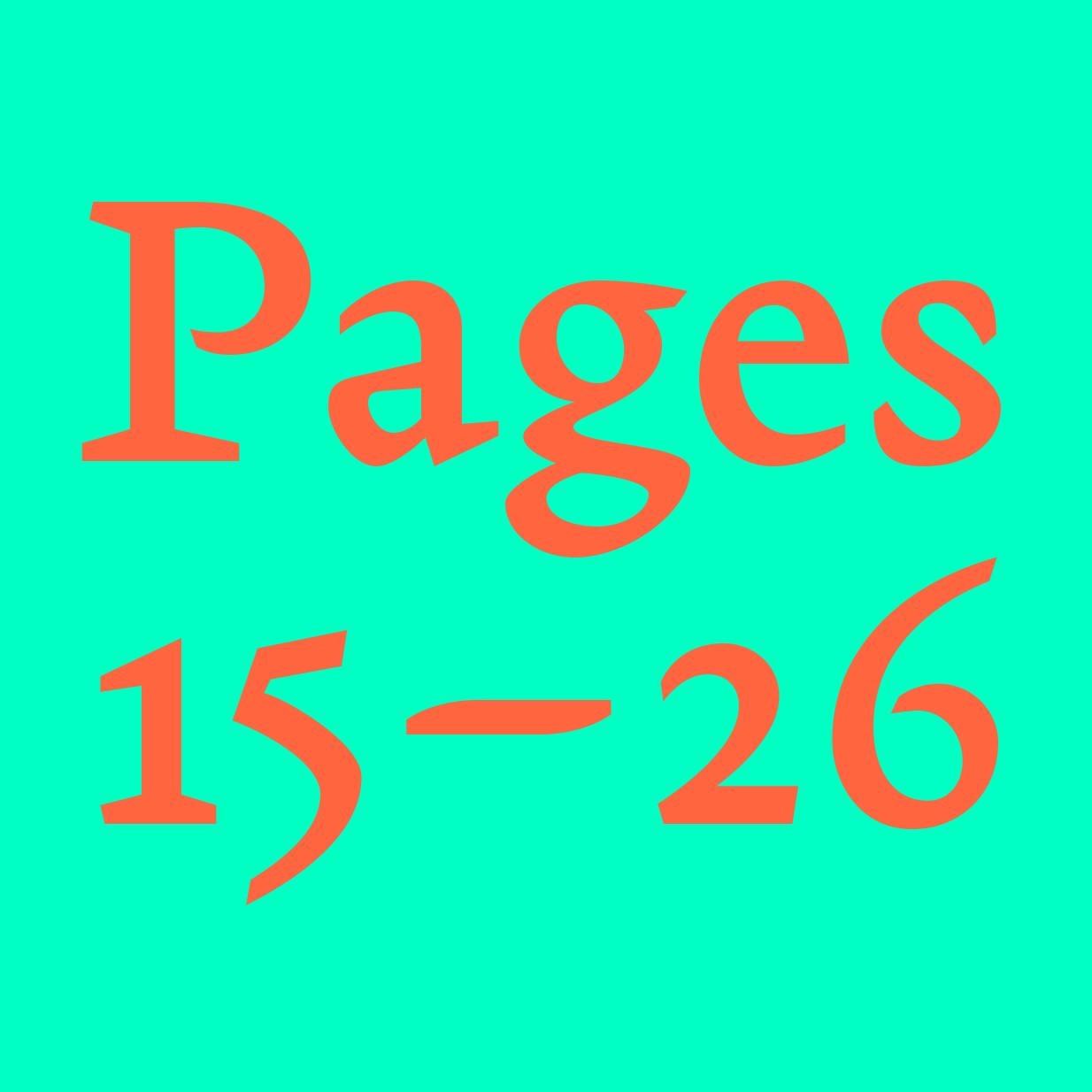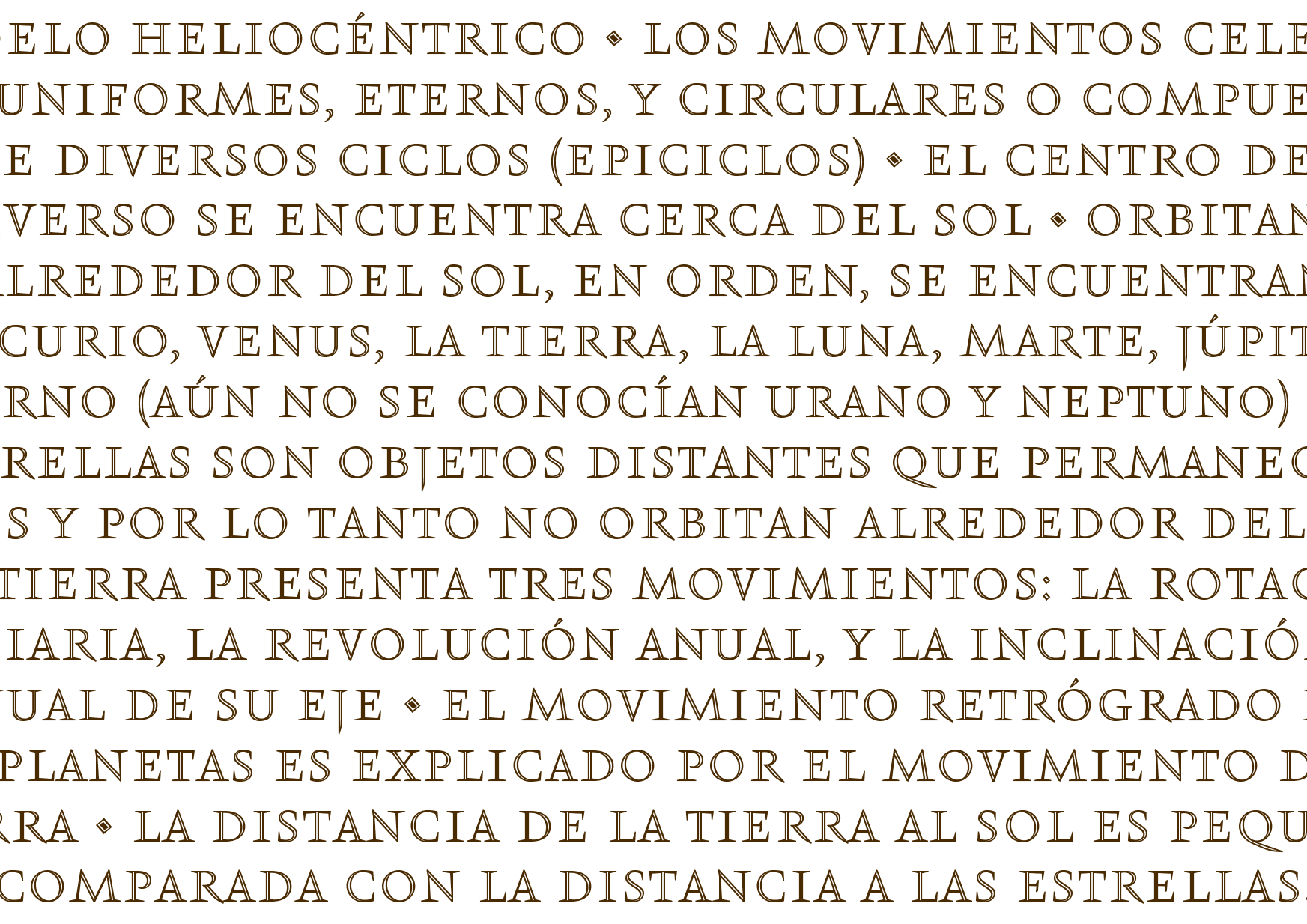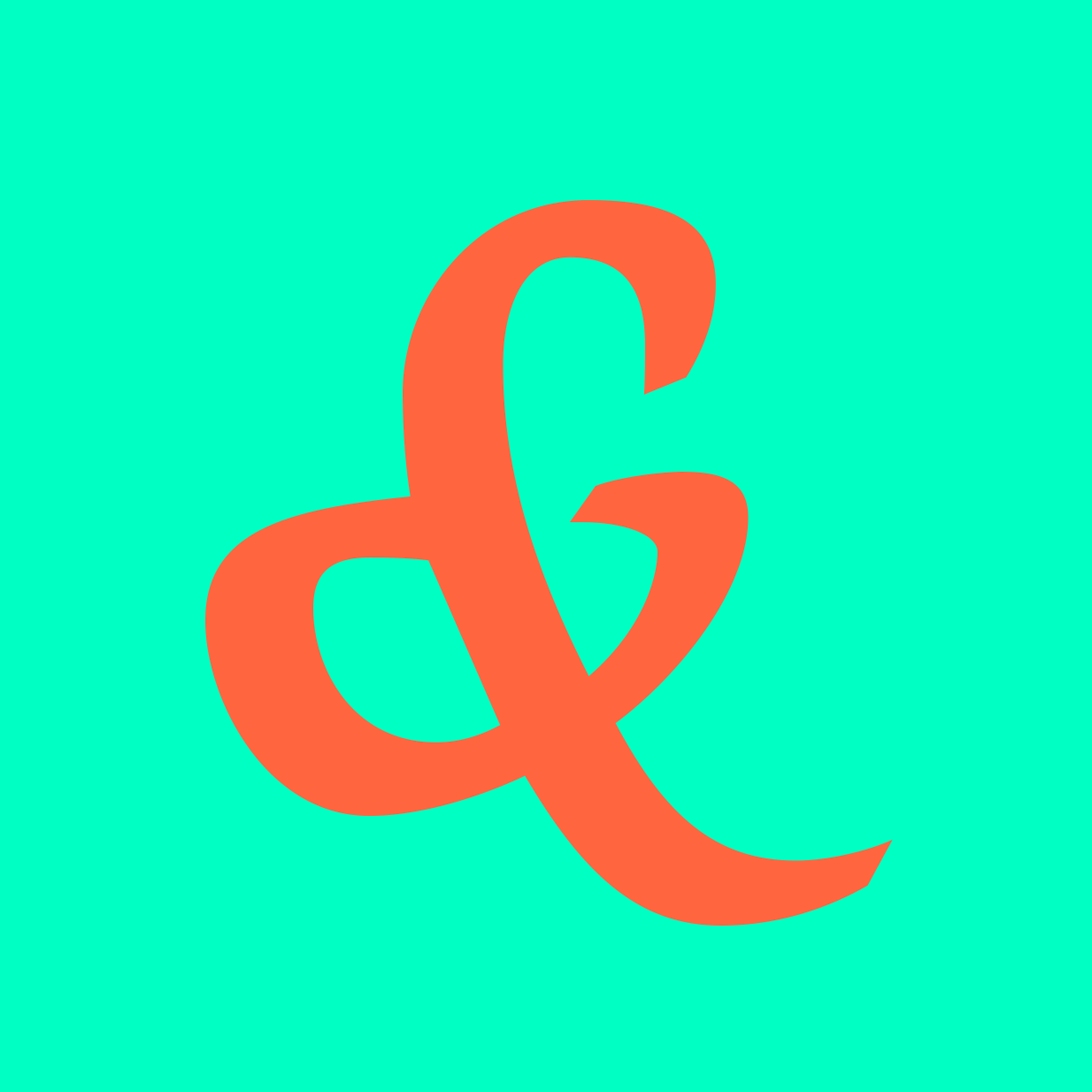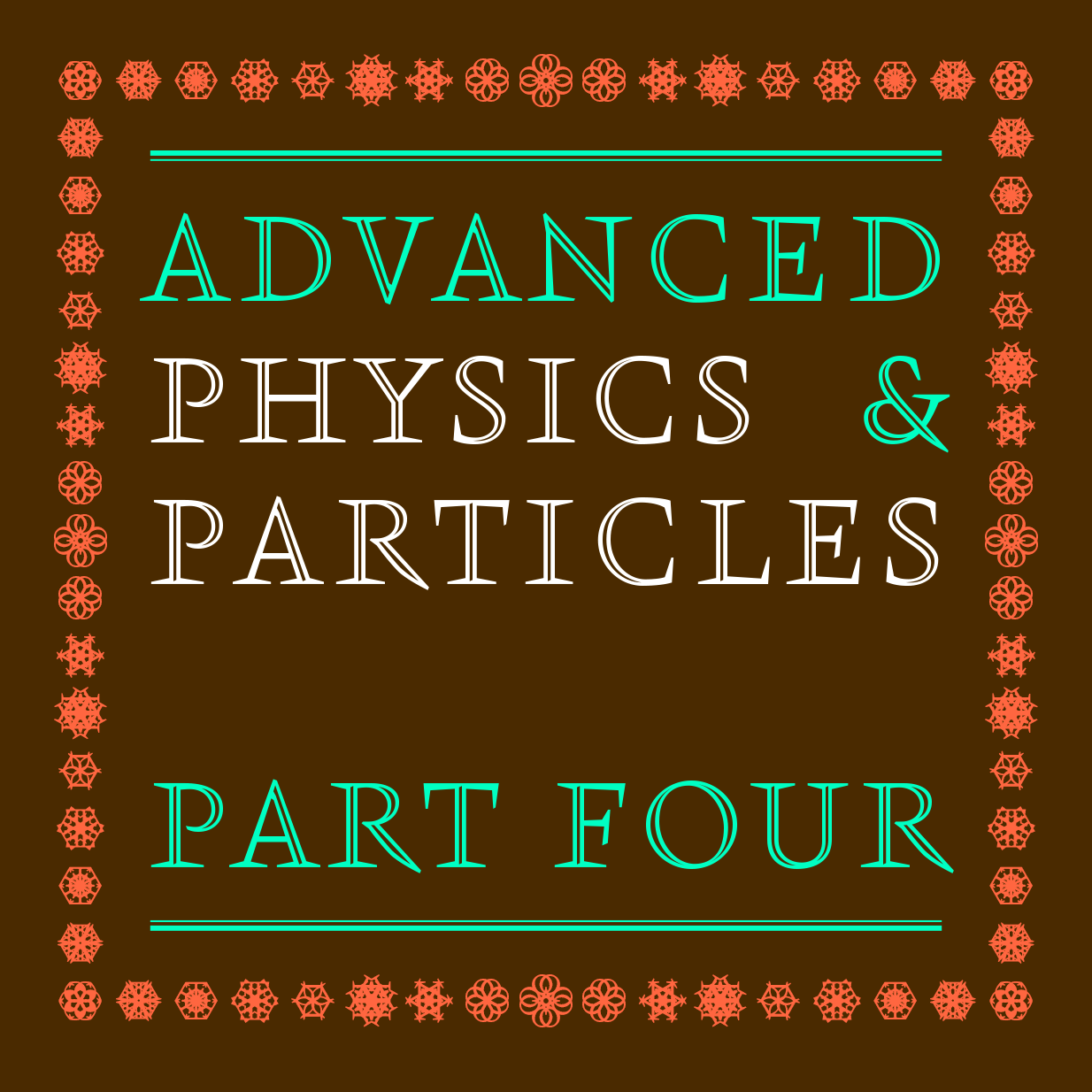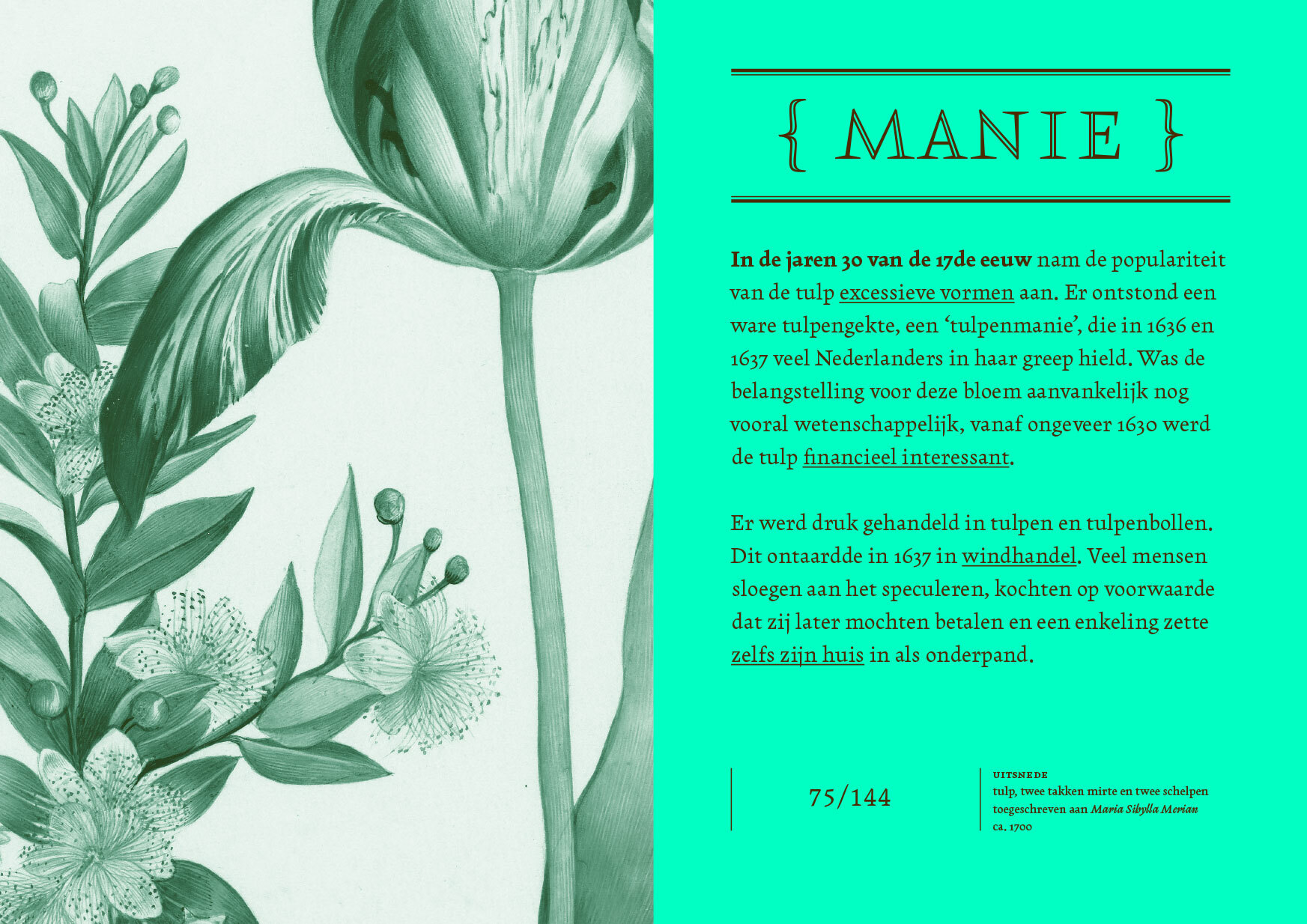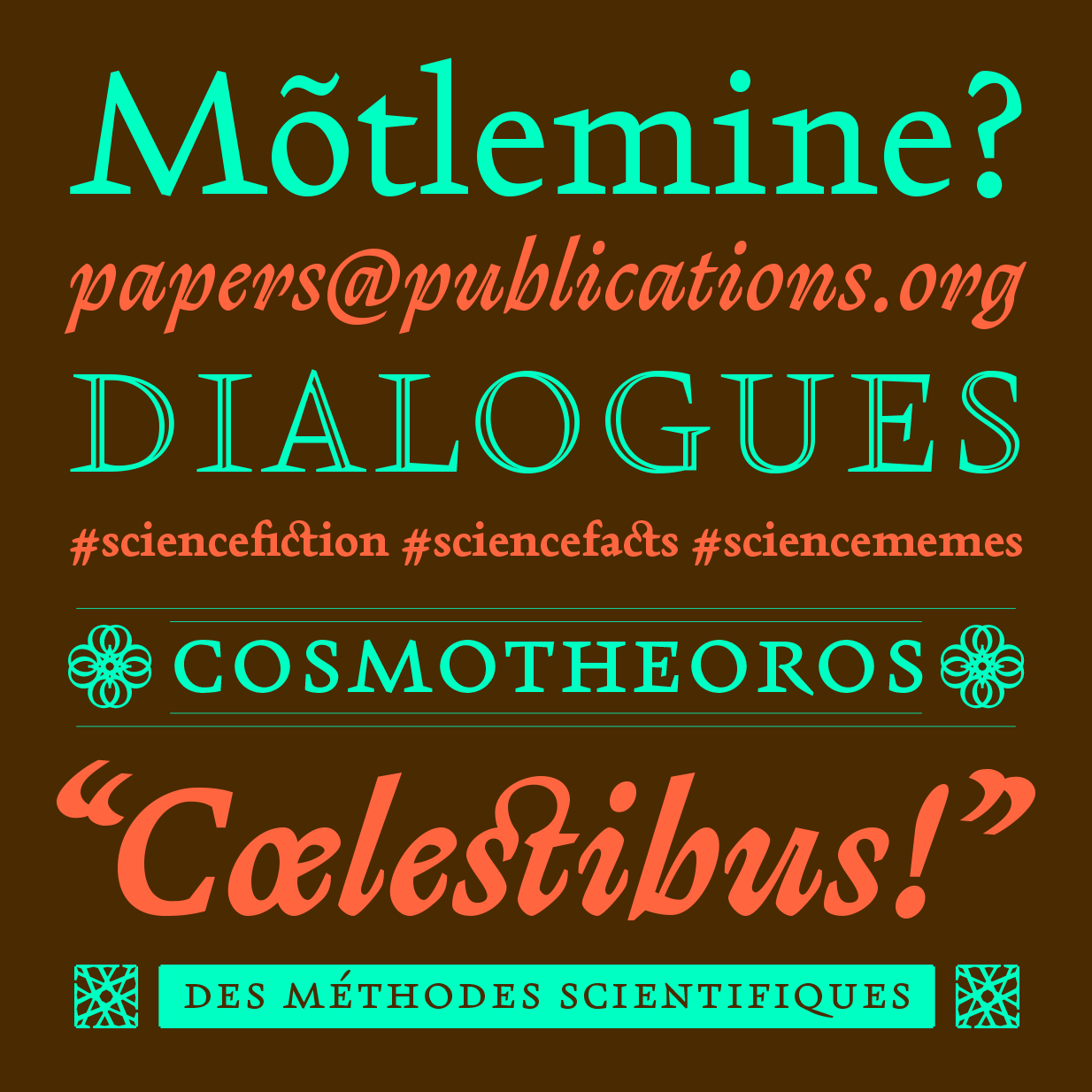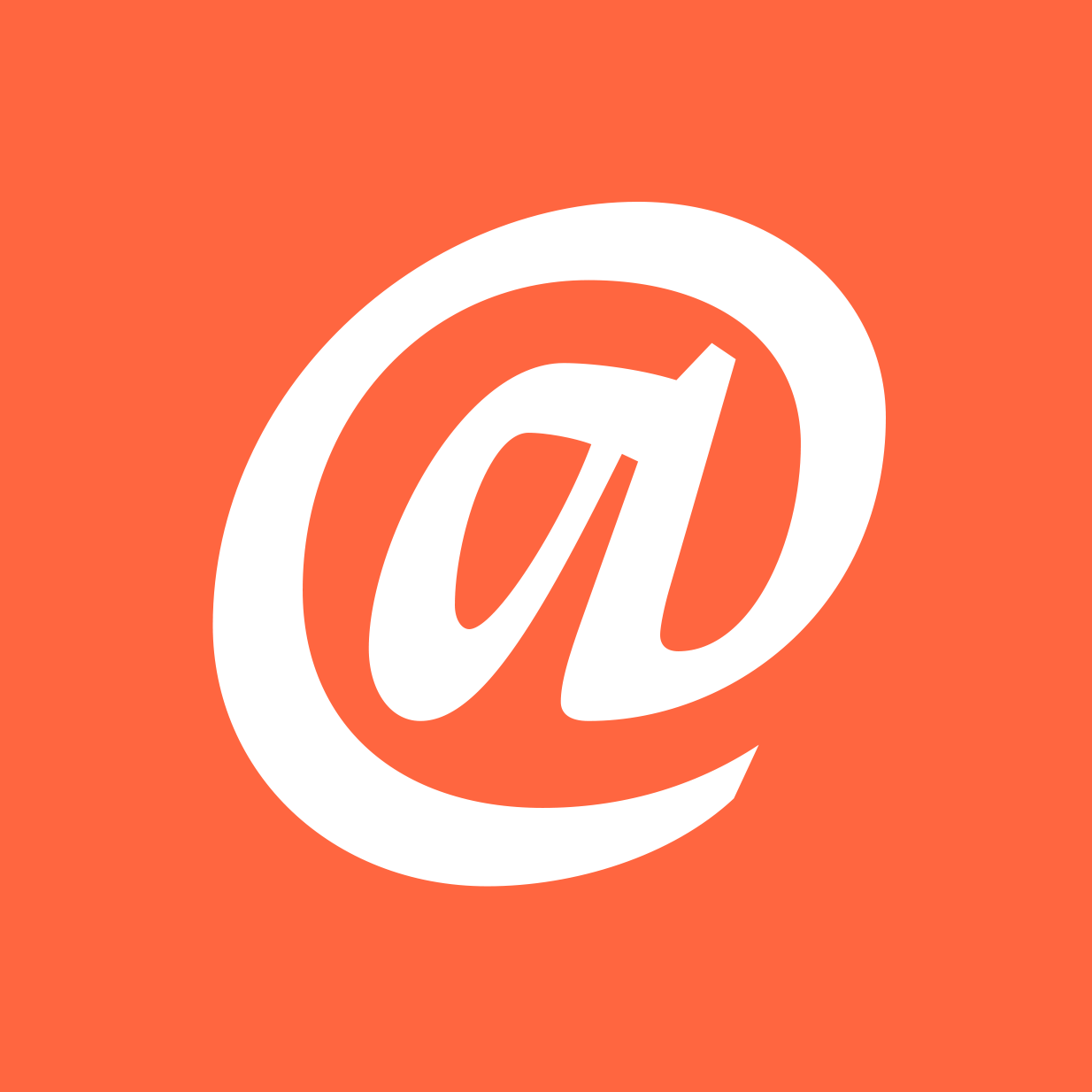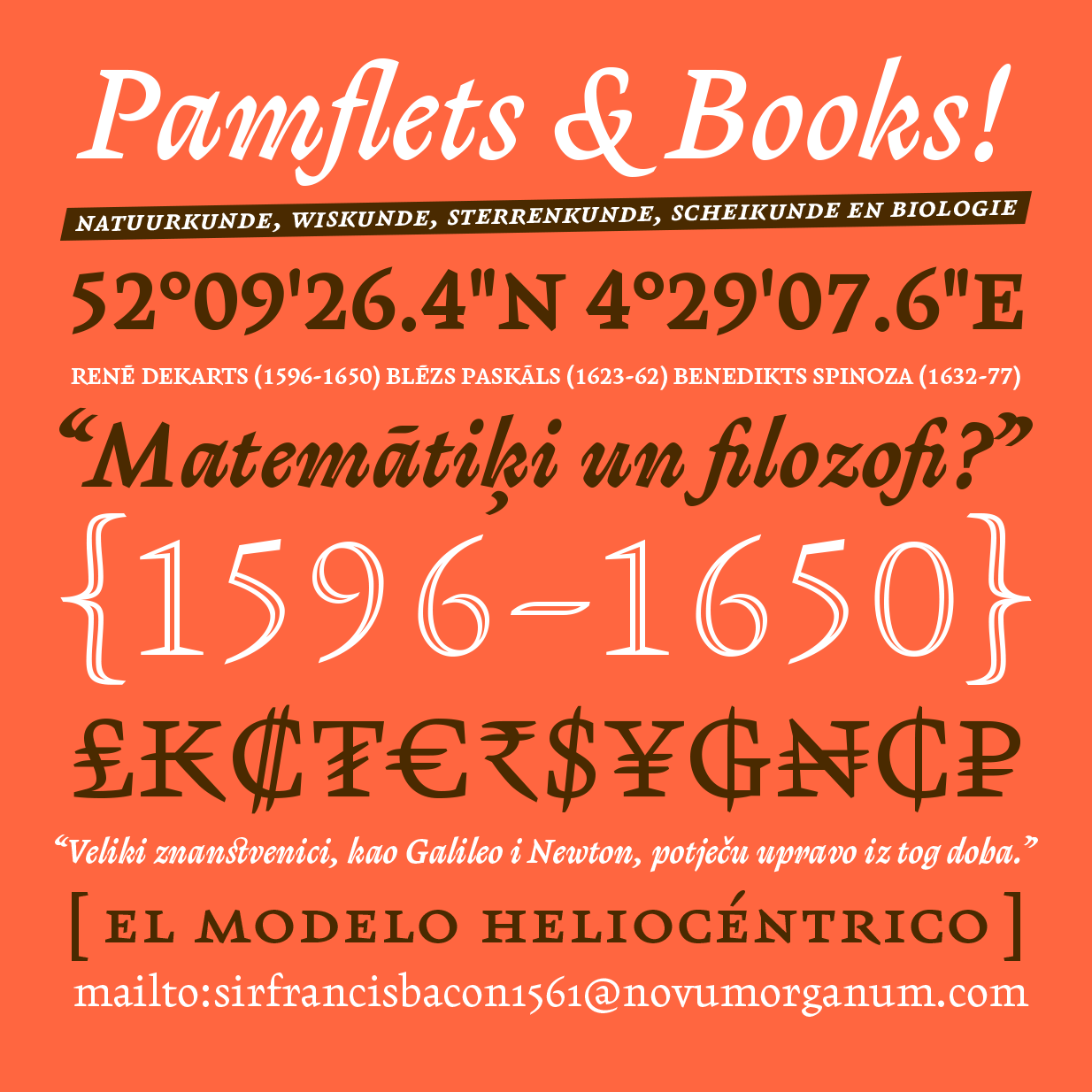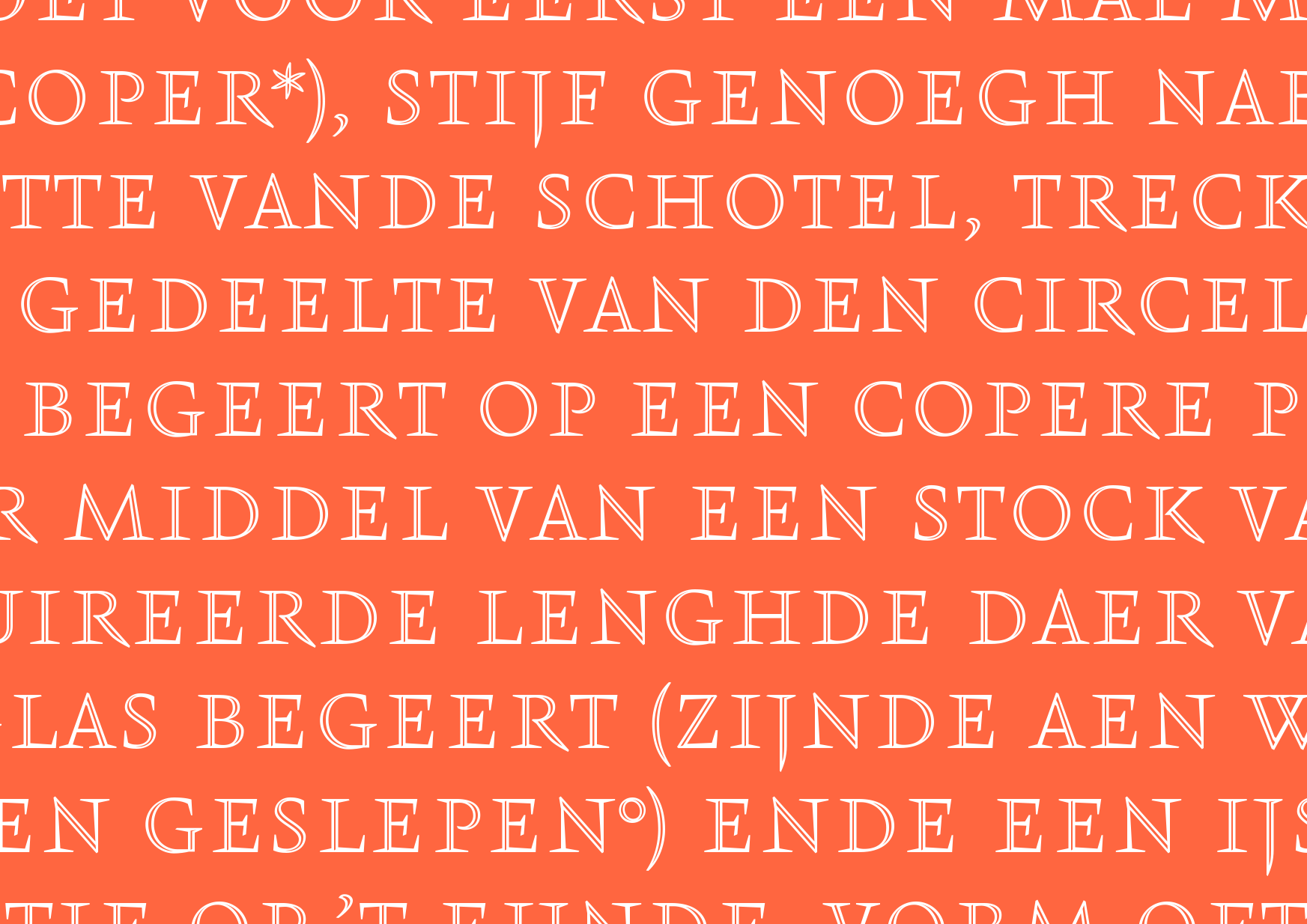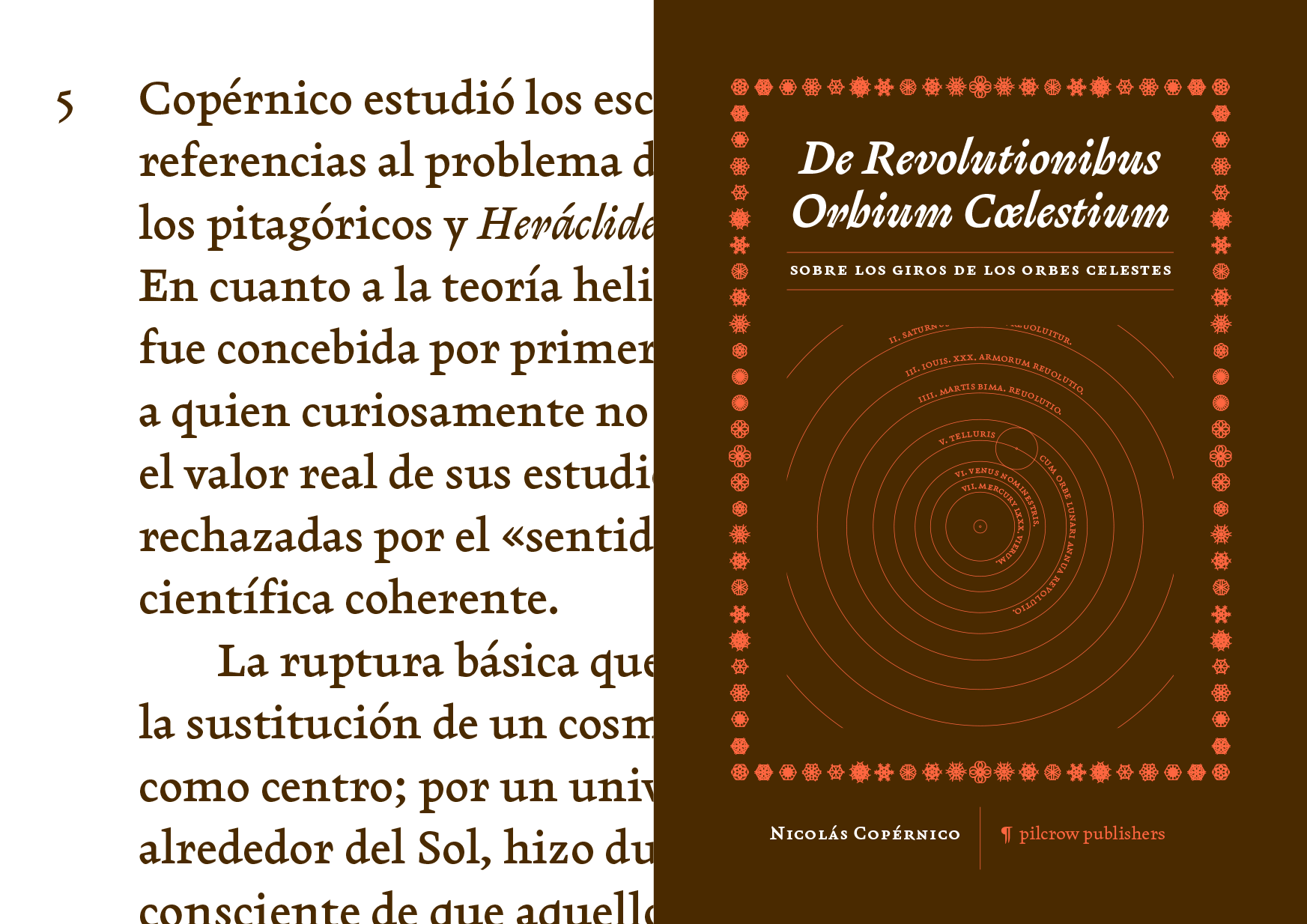
Kristal
Years ago, Kristal started as a sketch for a logotype, giving way to ideas and energy that didn’t fit in a short-term project with limited design freedom. Since then, Eyal Holtzman grew the design into a unique family of eight: three weights with striking, spirited italics and an all-caps inline titling style. An Ornaments font rounds out the extended character-set and language support of the text styles.
As a versatile book face, Kristal provides a pleasant reading experience while giving the text a very special character and sparkle. The acute stroke endings in uppercase and lowercase letters – almost blade-like – enliven every paragraph. Headstrong and expressive, but still rooted in calligraphy and easy to combine with other typefaces and scripts. The Open Caps display style evokes a timeless, festive look and may be applied in monumental lettering, elegant card or cover designs, adding nuance and combining harmoniously with the rest of the family, or they can be used in their own right.
Kristal has received a Type Directors Club Certificate of Typographic Excellence in 2022.
Eyal Holtzman